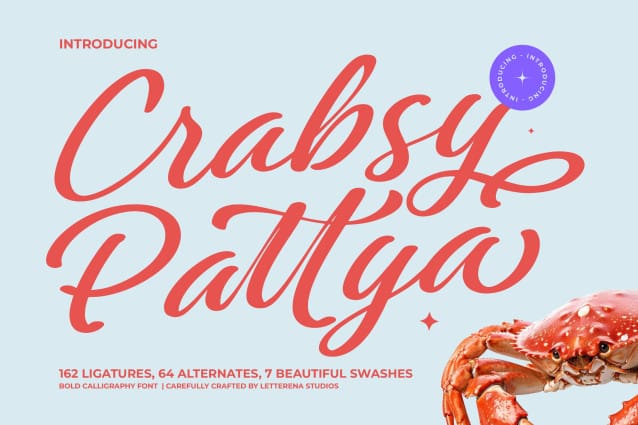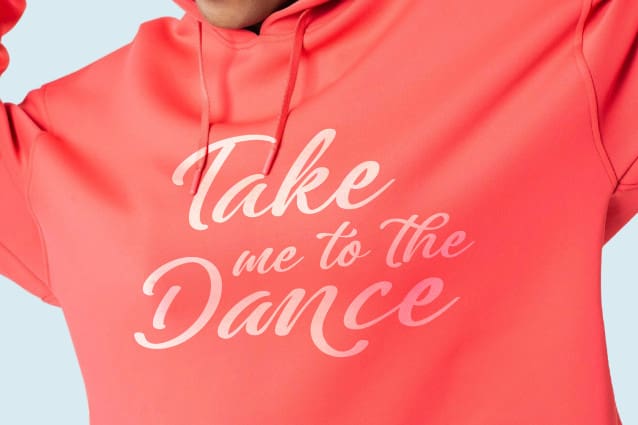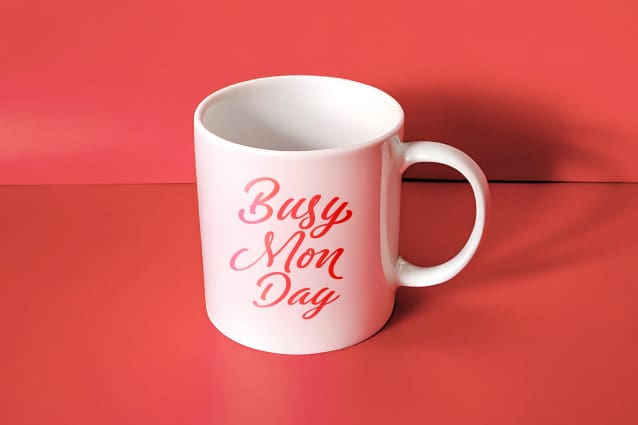
Crabsy Pattya Font
Crabsy Pattya Font – Bold Calligraphy Font , from Letterena, is a Luxury Script font, suitable for any projects such as: logos, branding projects, homeware designs, product packaging, mugs, quotes, posters, shopping bags, t-shirts, book covers, name card, invitation cards, greeting cards, label, photography, watermark, special events, and all your other luxury and beautiful projects that need a Luxury Script taste.